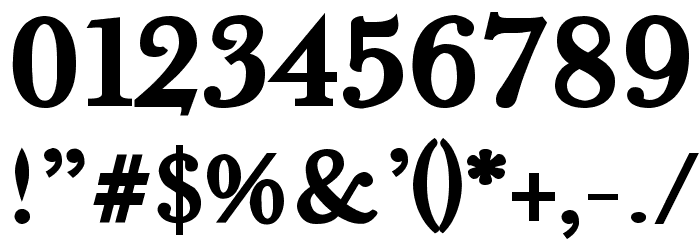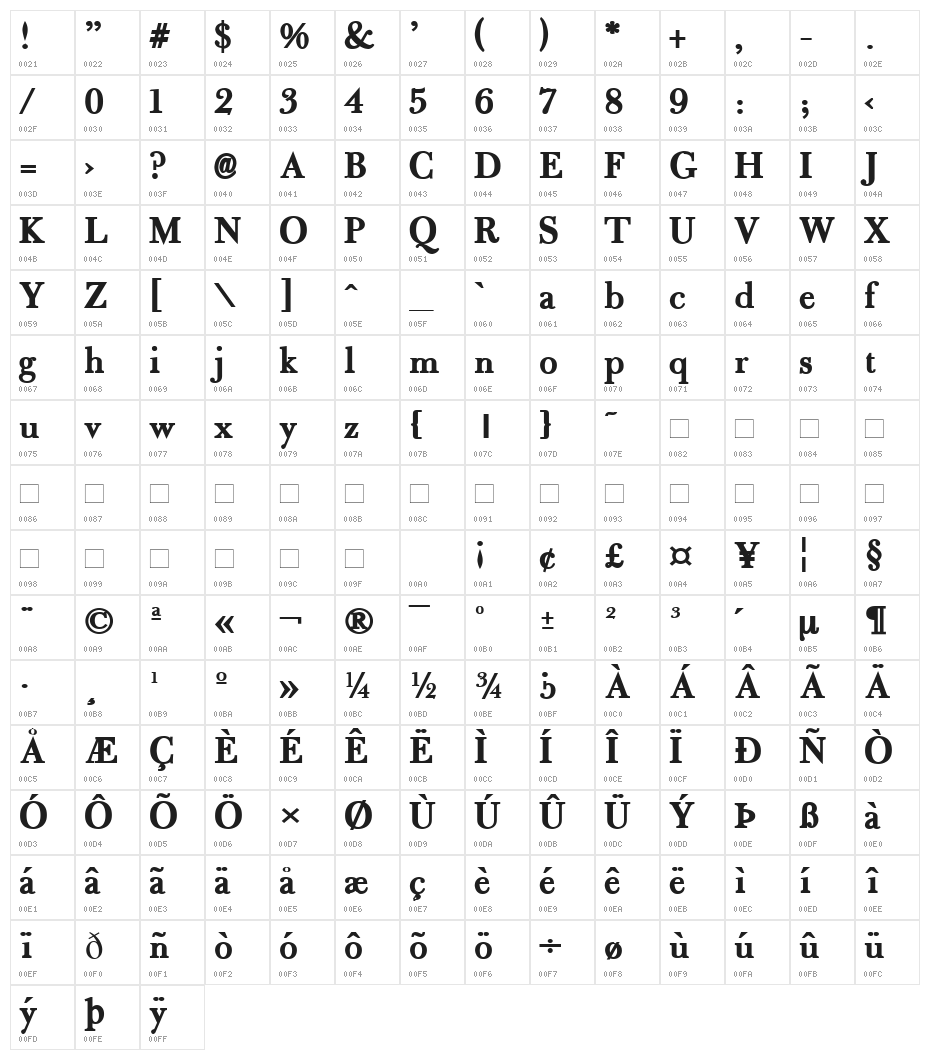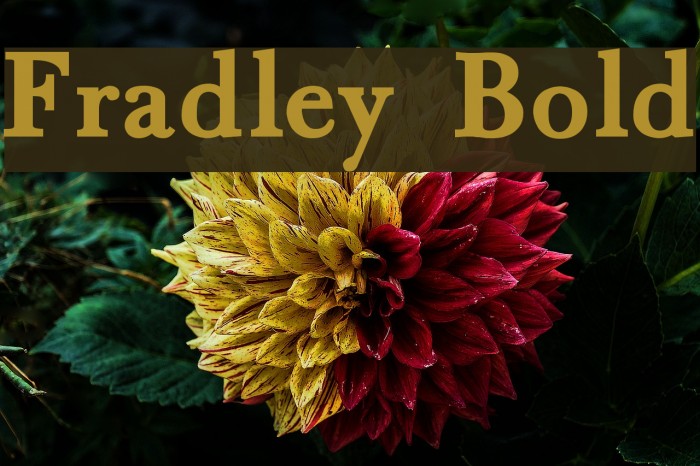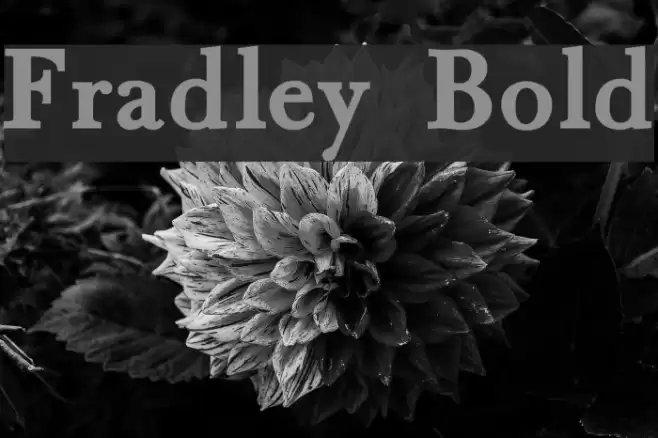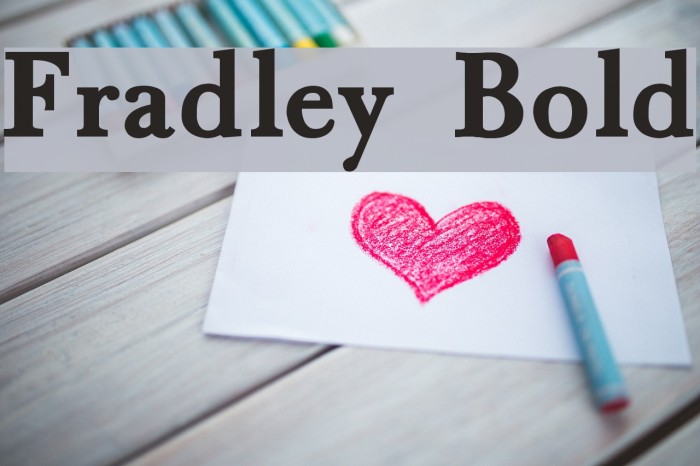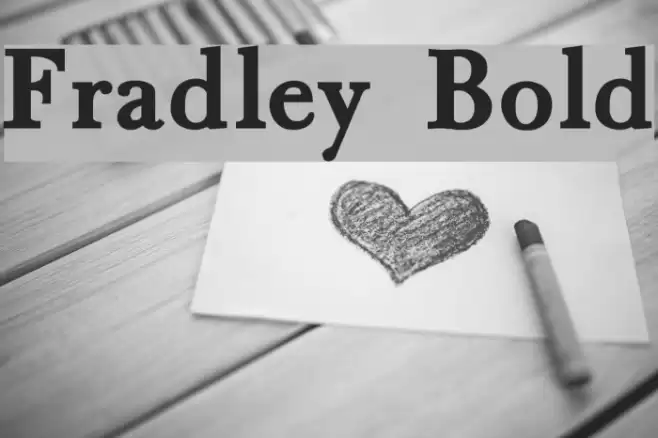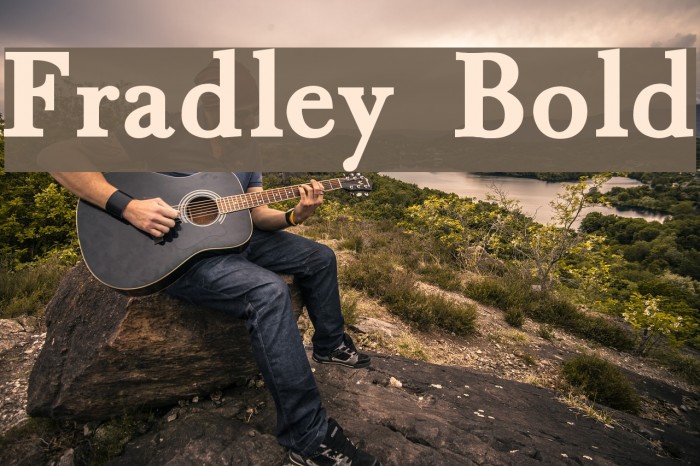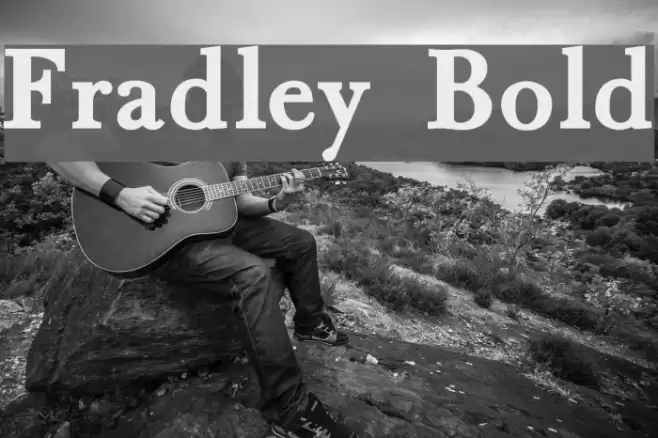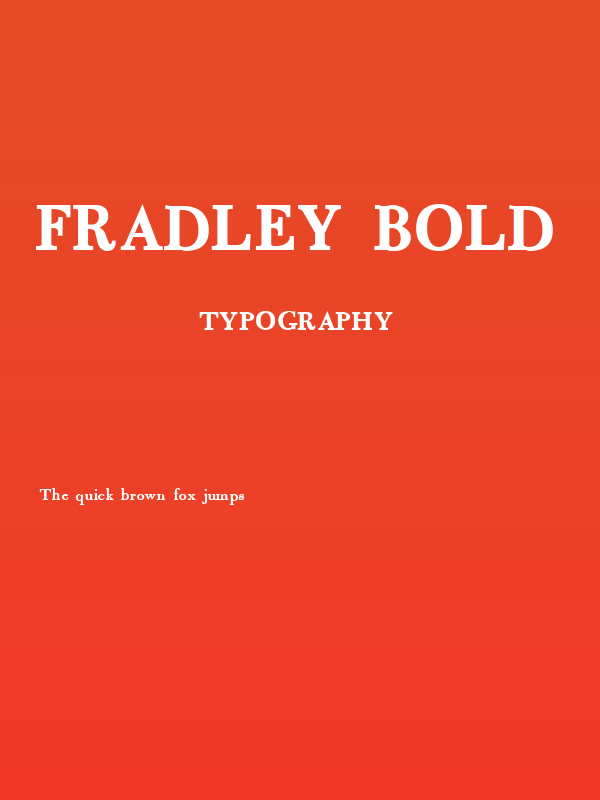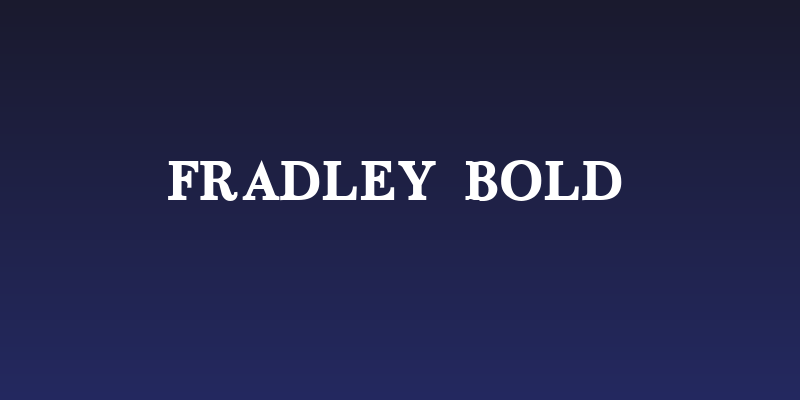
Fradley Bold Font
Fradley Bold Description
This font exhibits a bold and commanding presence with its strong, thick strokes and classic serif design. The serifs are pronounced, adding a touch of elegance and tradition to the overall appearance. The uppercase letters are particularly striking, with a uniform height and balanced proportions that convey a sense of authority and stability. The lowercase letters maintain a consistent style, offering a harmonious flow that complements the uppercase set. Numbers are clear and robust, ensuring readability in various contexts. Special characters are well-integrated, maintaining the font's cohesive look. This font is ideal for making a bold statement while retaining a classic and sophisticated aesthetic.
| Use Case | Headlines, Logos, Editorial design |
| Proposed Projects | Ideal for headlines, book covers, branding, and editorial design where a bold, classic look is desired. |